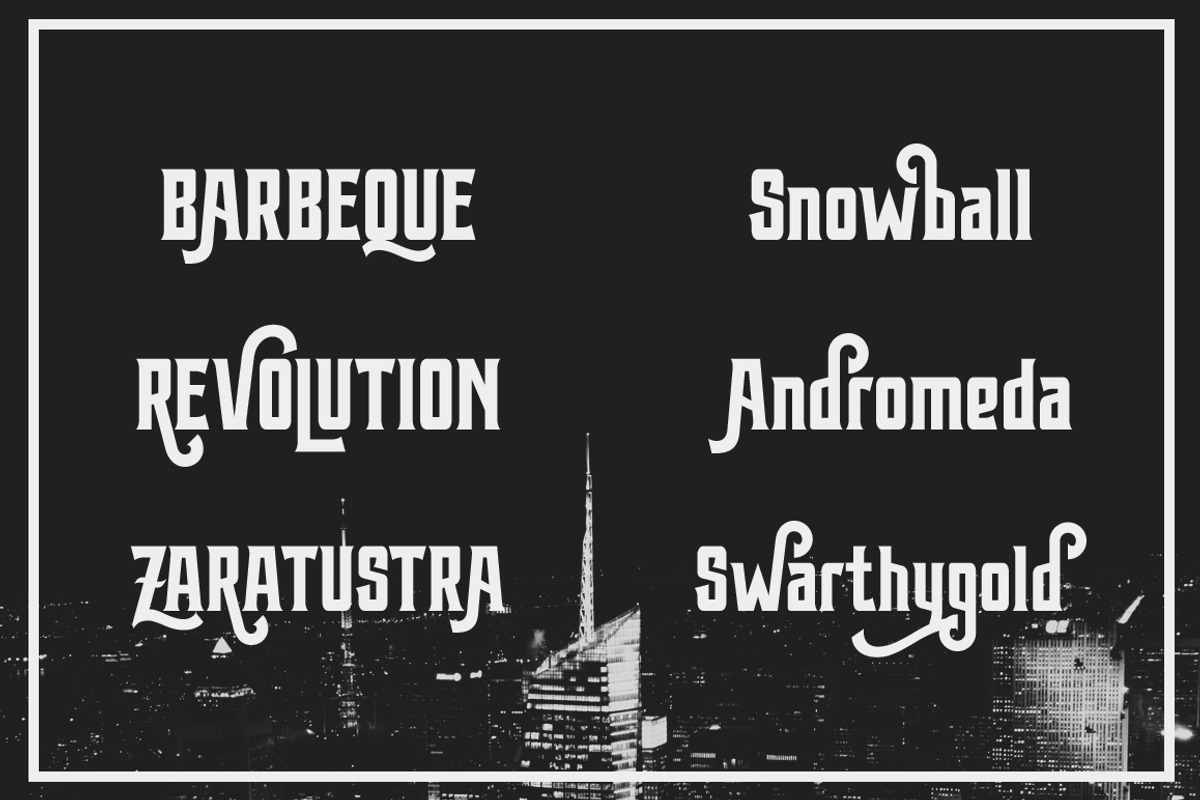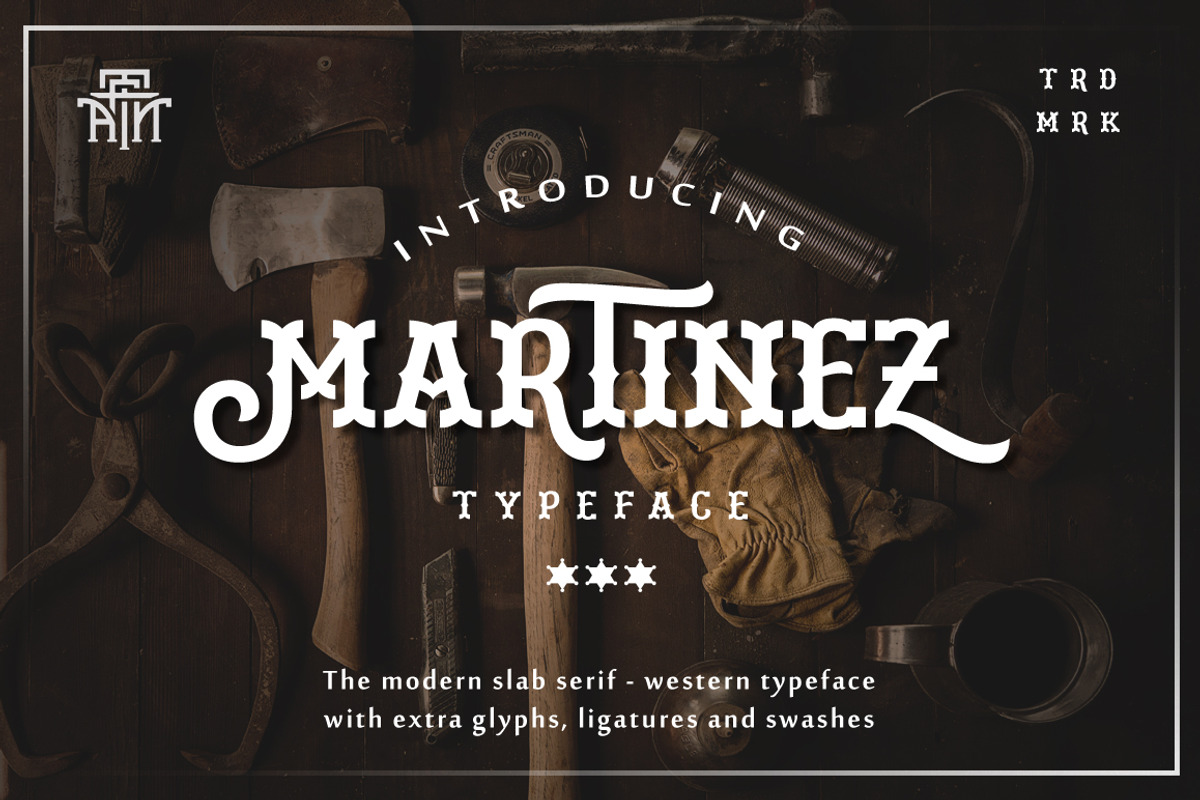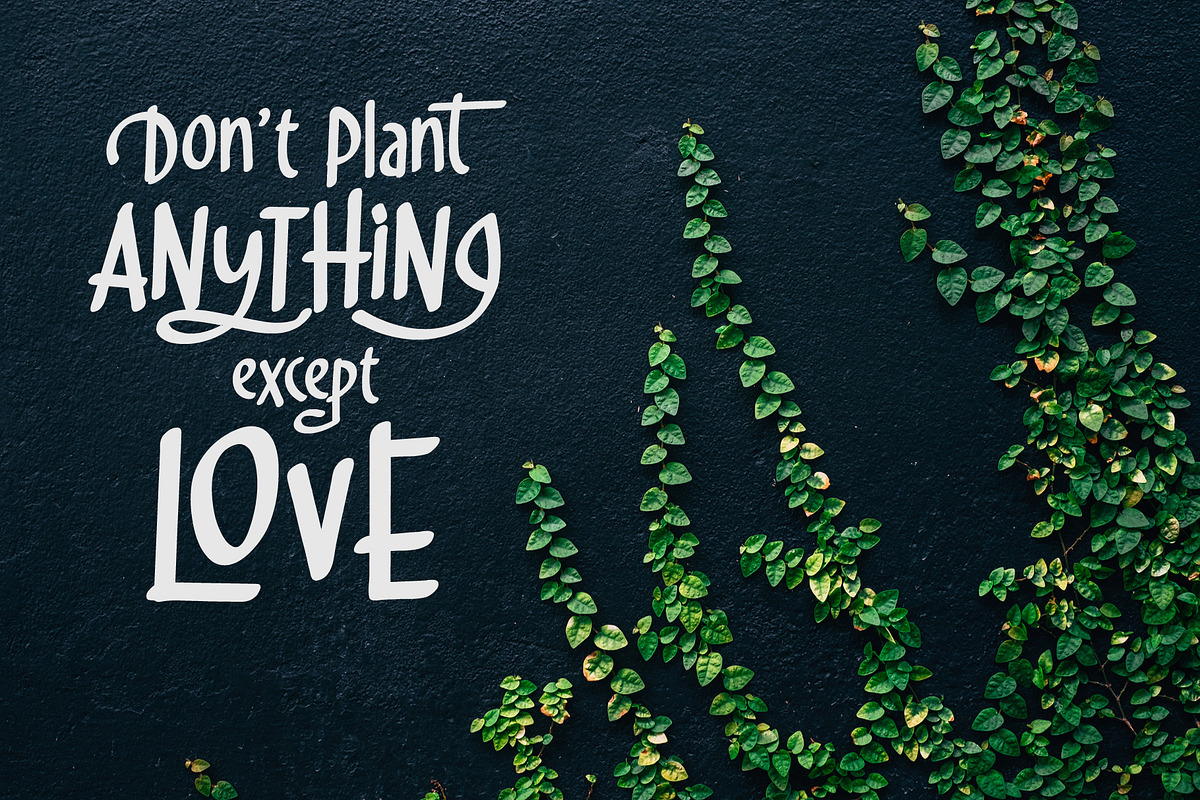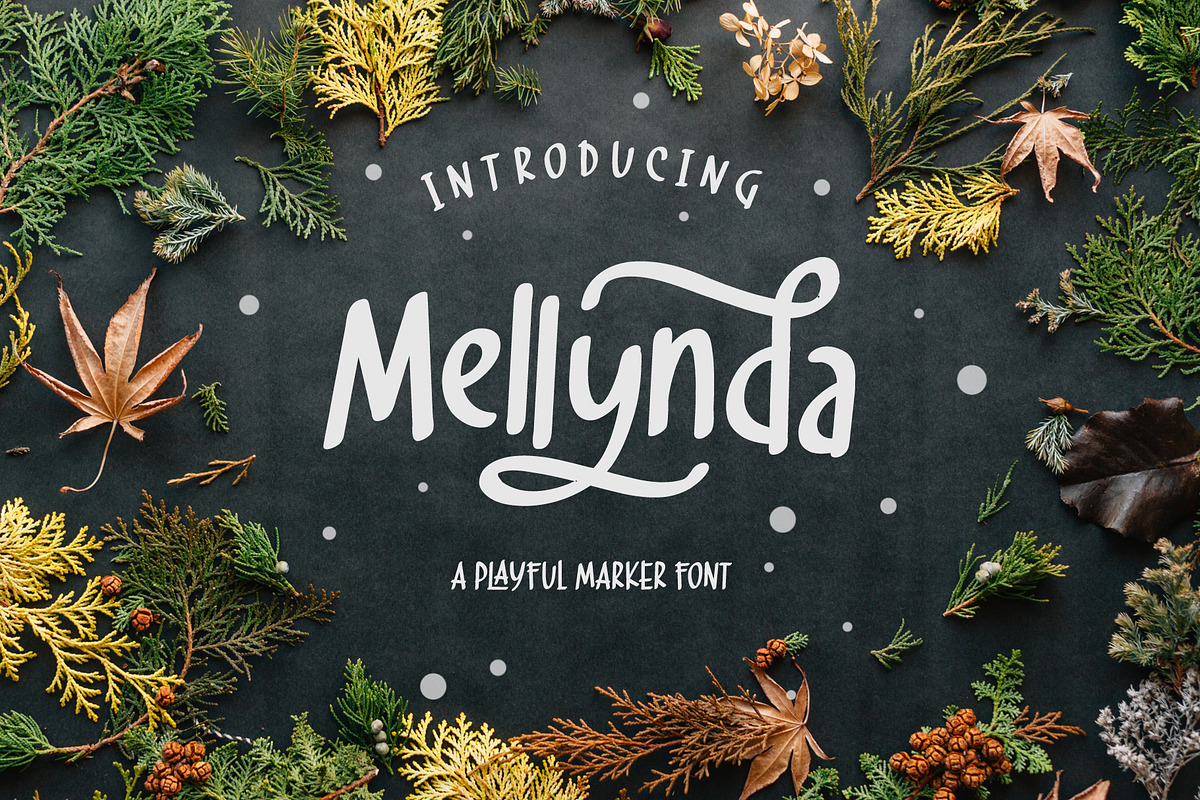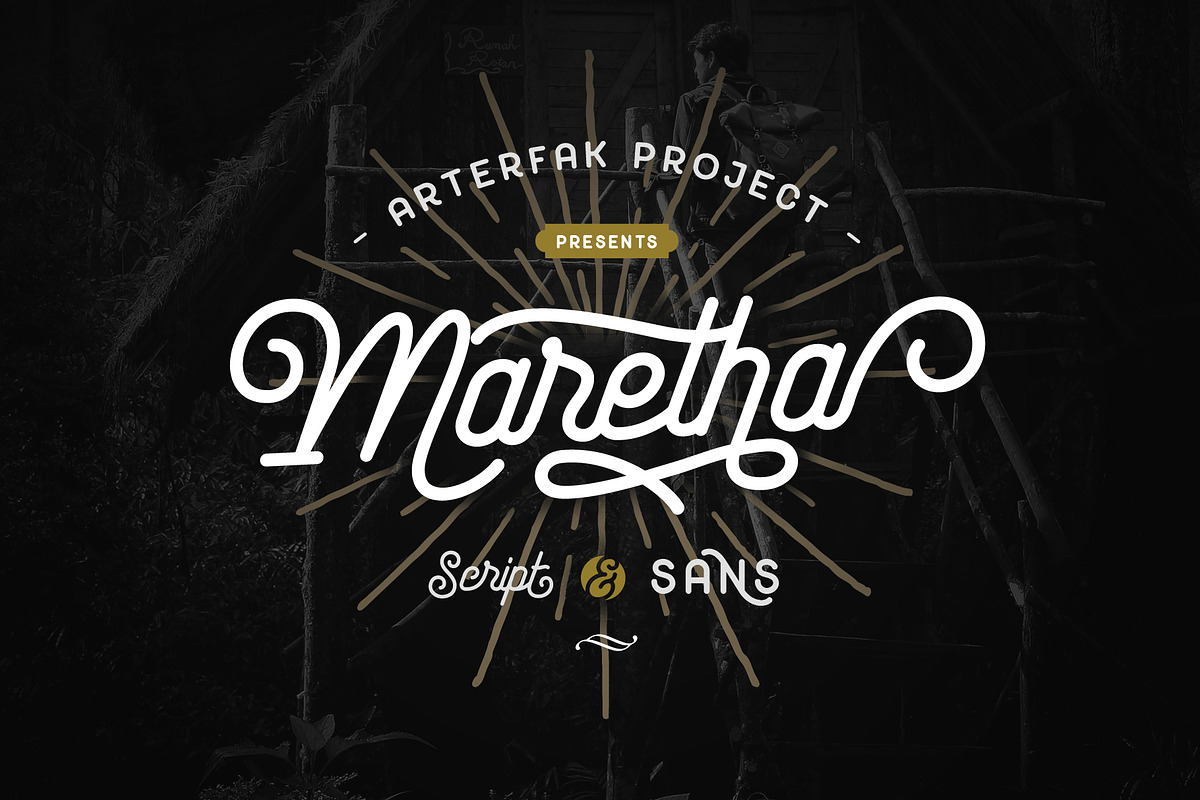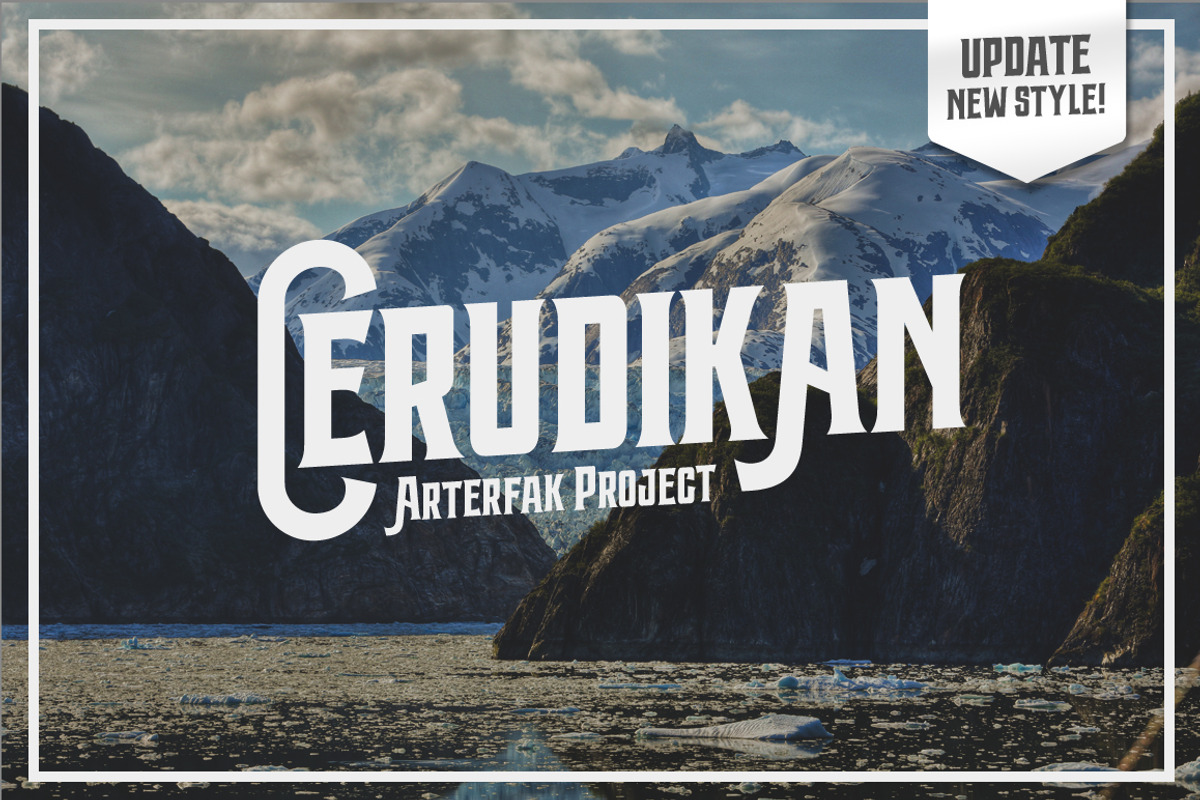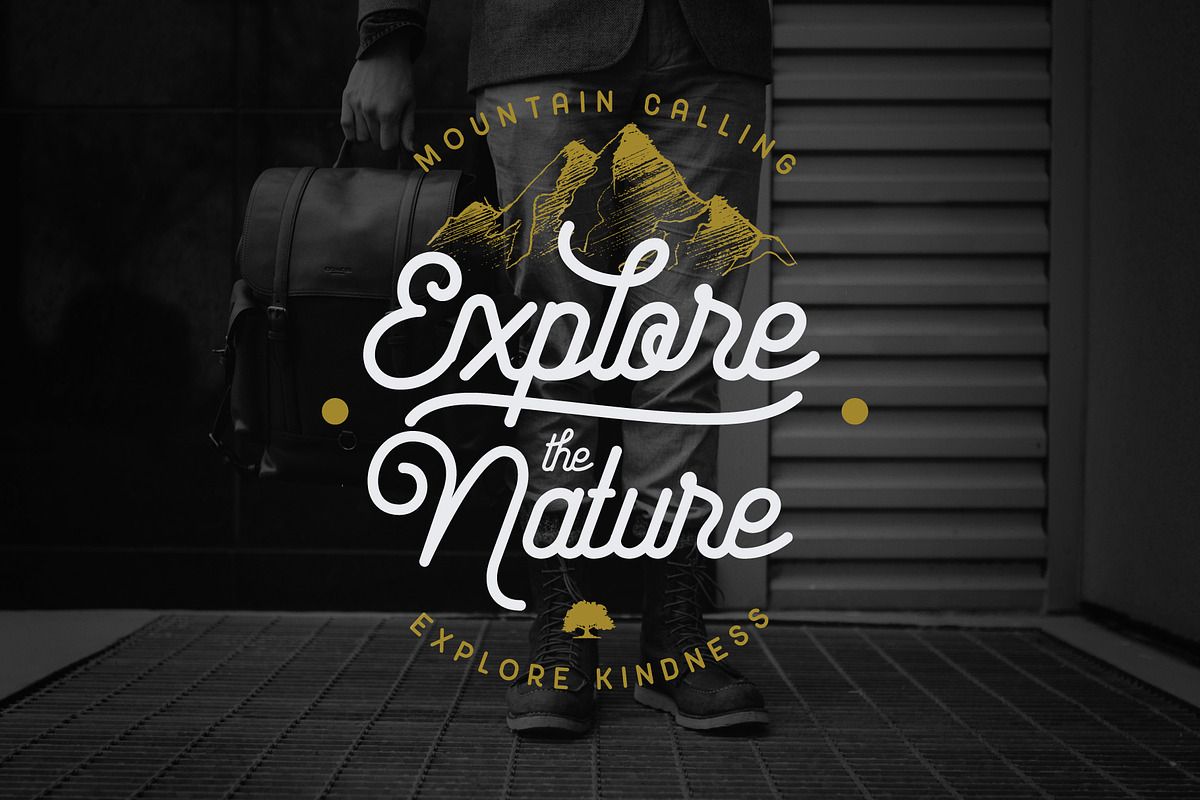
76 Fonts in 1 Font Collection
Greetings. Celebrate the year-end sale, We presenting our 3rd font bundle. The collection of 70+ various fonts from 18 products, now in 1 bundle. This bundle also containing best selling items likeBertha, Monabelia, Philosofiya, Rockrace and Hughoney font. $191 value for only $15! Most fonts in this bundle are recommended for display, headline or titling. Other items also good for body text and editorial.
This font bundle containing diverse font styles :
There are tons of OpenType features like Stylistic alternates, contextual alternates, Stylistic sets, and custom ligatures that you can access to gives you many options in your design project. Also featured up to 23 accents.